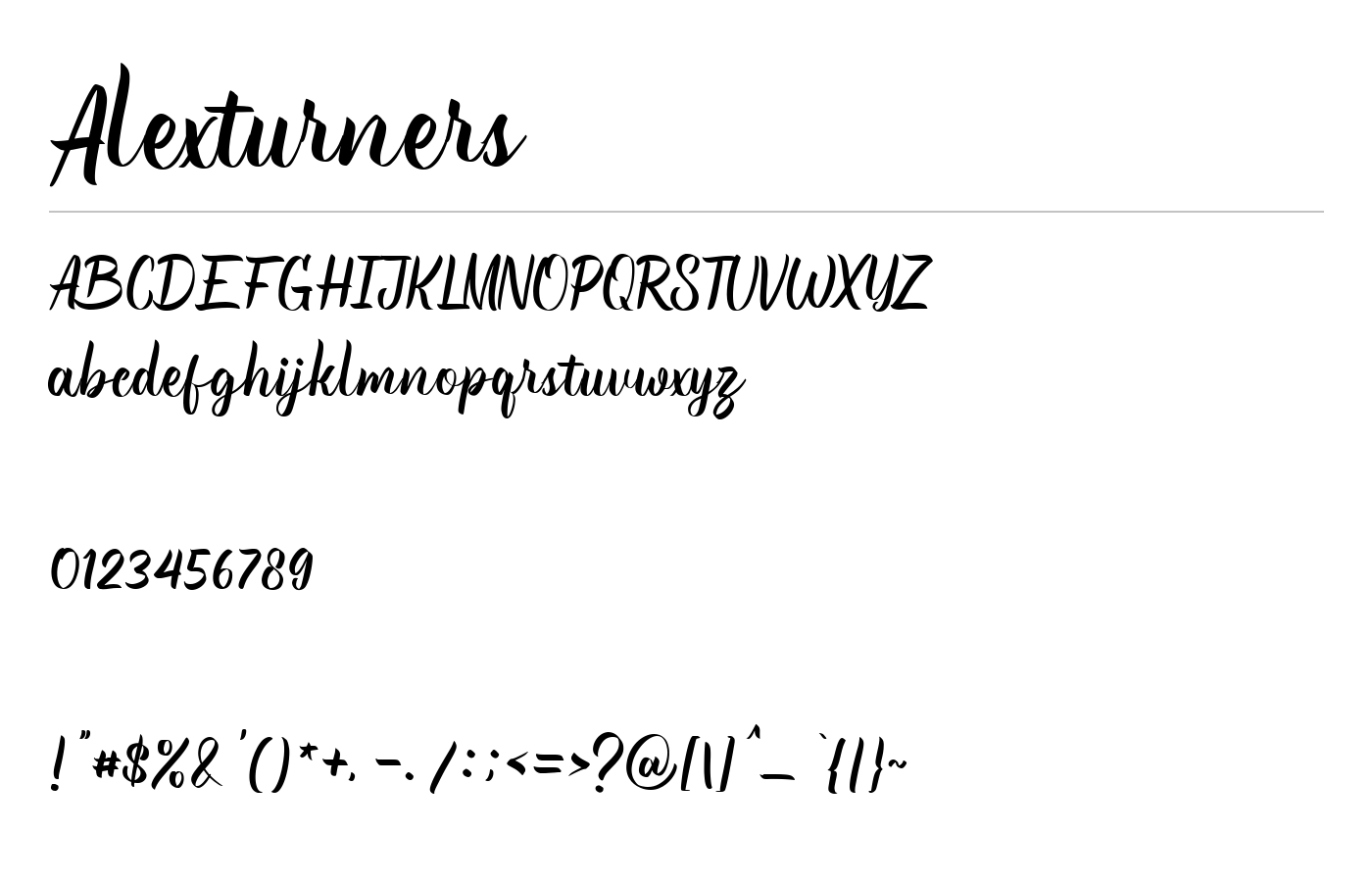
Alexturners is a stylish script font that combines a casual, handwritten feel with elegant curves, making it perfect for creative and personal design projects. Its smooth, flowing strokes and balanced letterforms lend a modern yet approachable personality, ideal for logos, invitations, and branding that seeks a friendly but refined touch. This font works well in settings where warmth and expressiveness are key, adding a unique flair without sacrificing readability.
Alexturners Font
About Alexturners Font